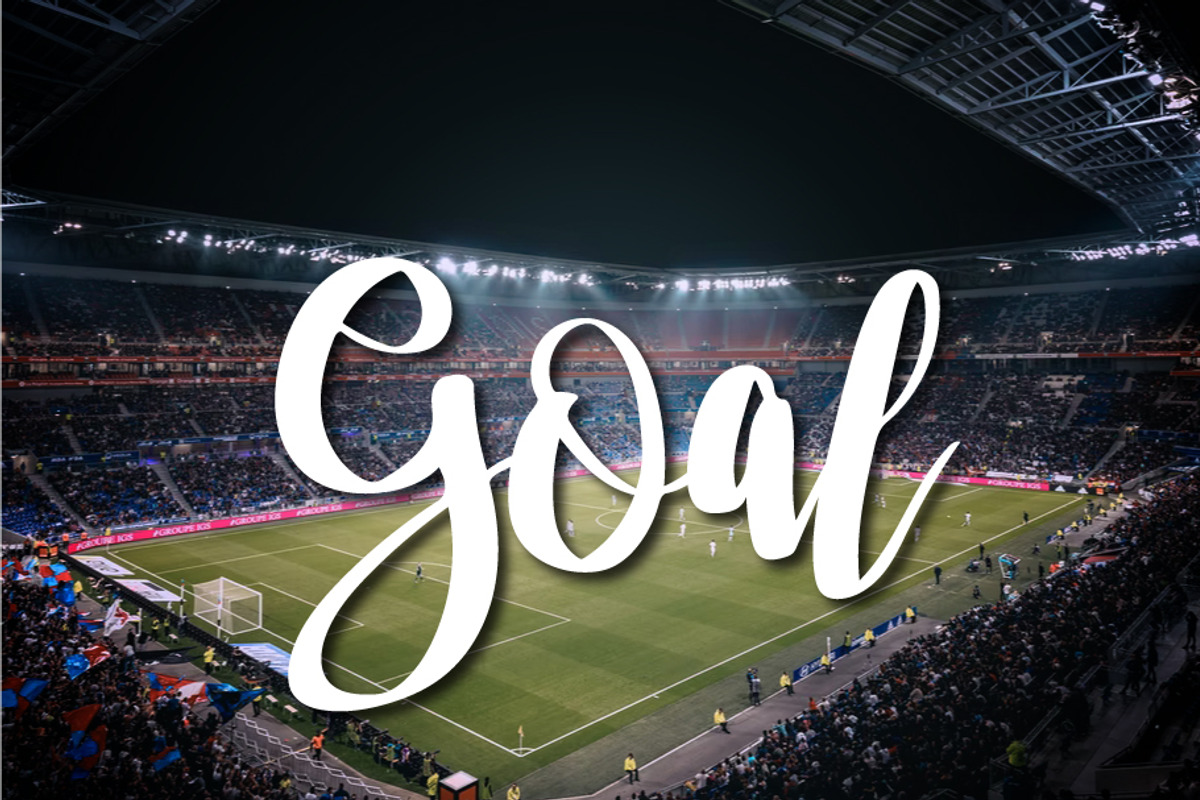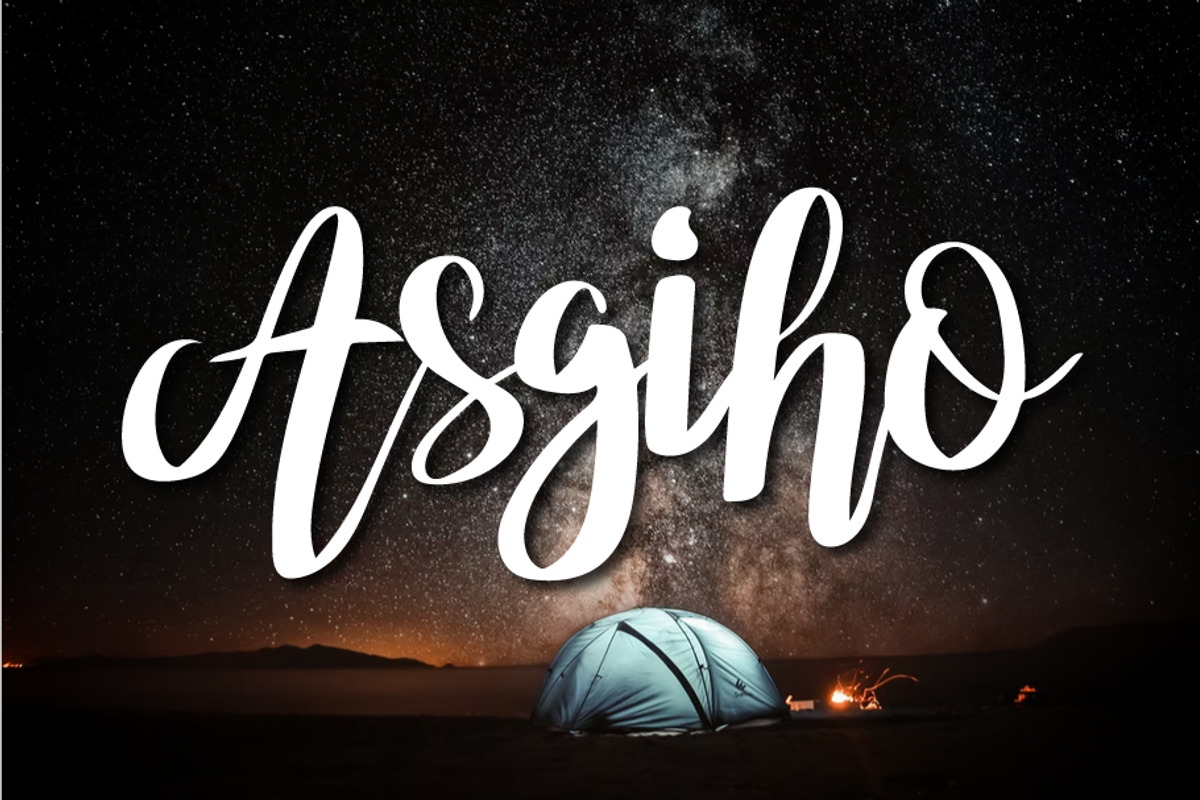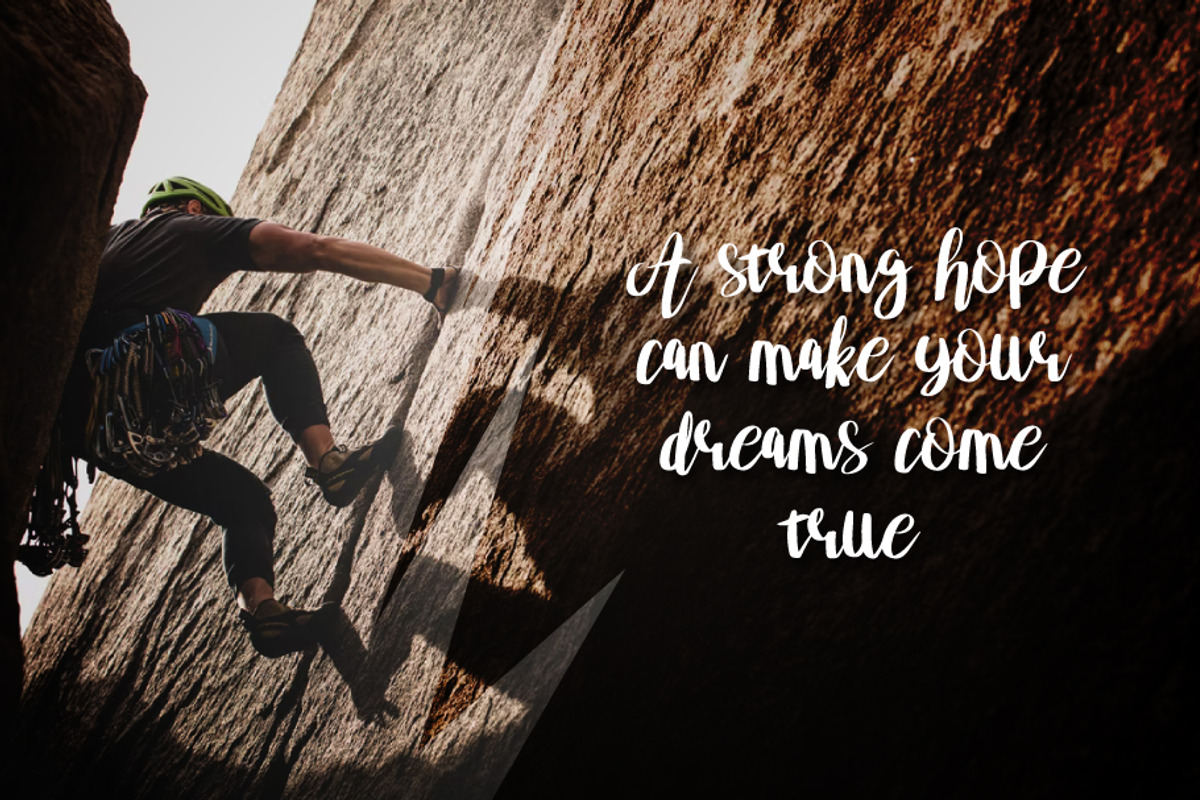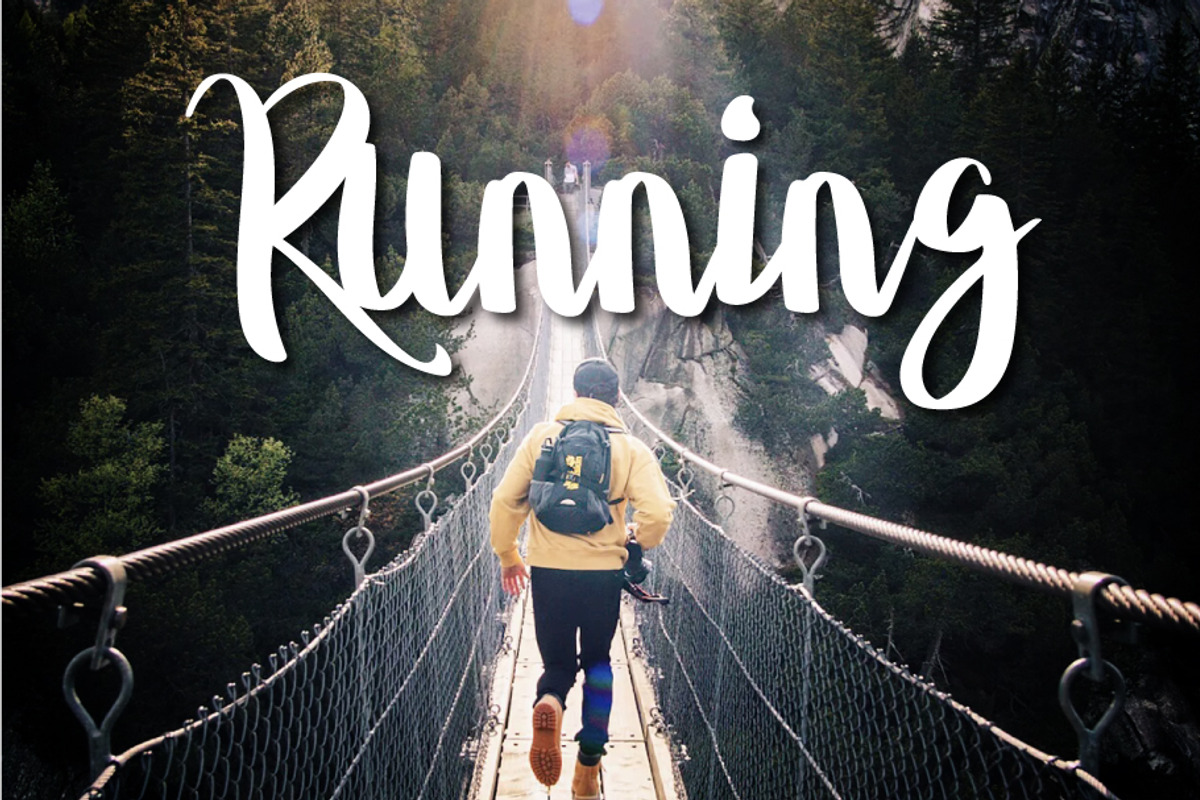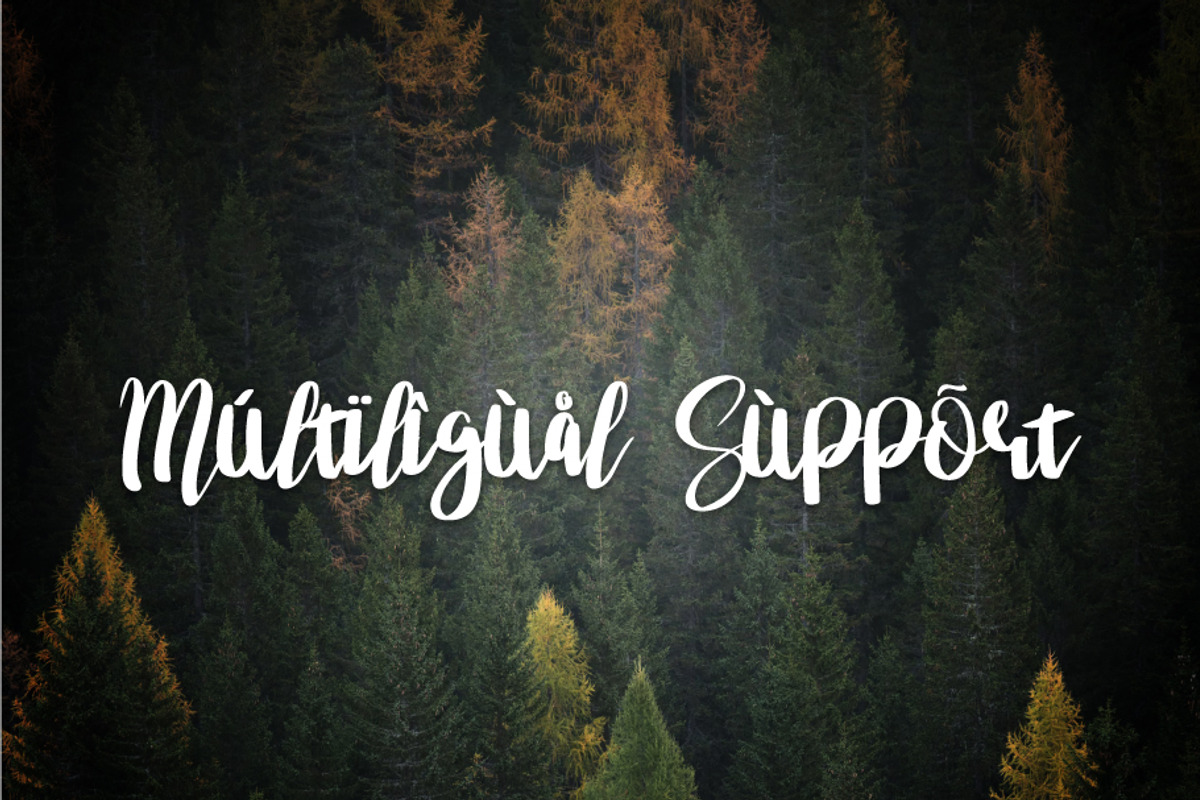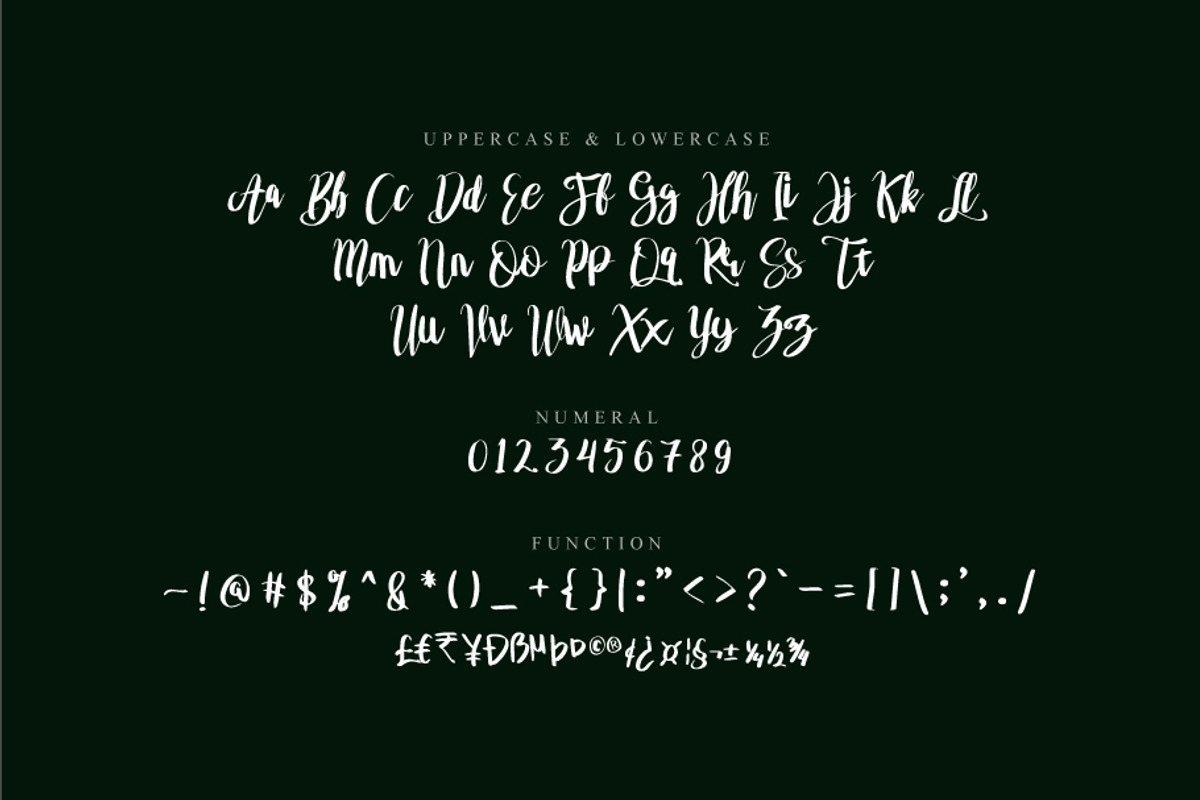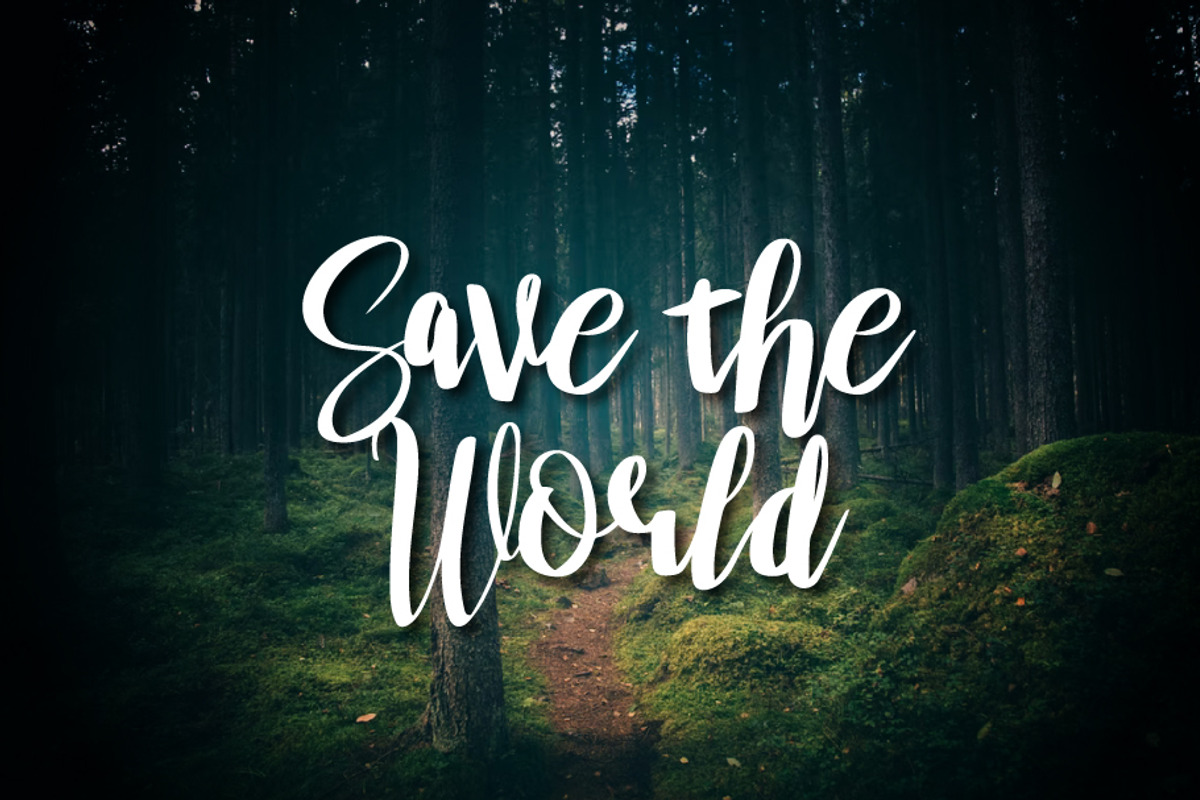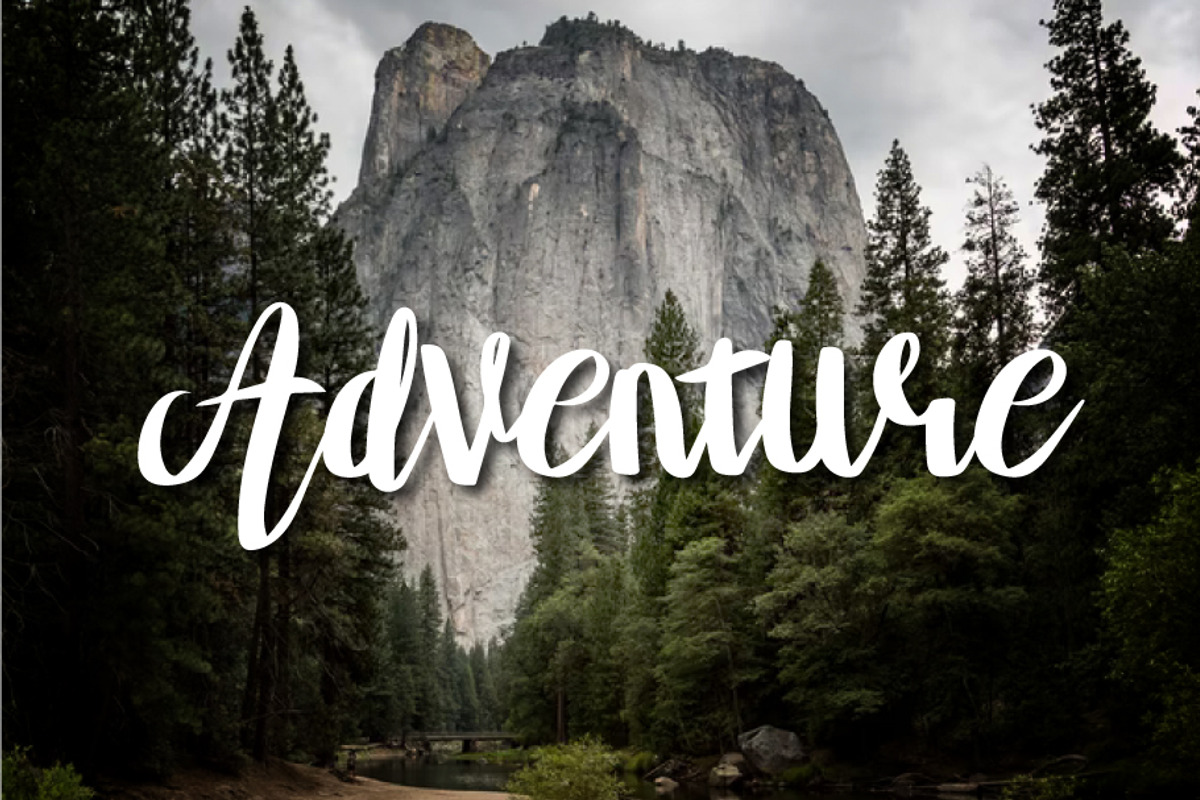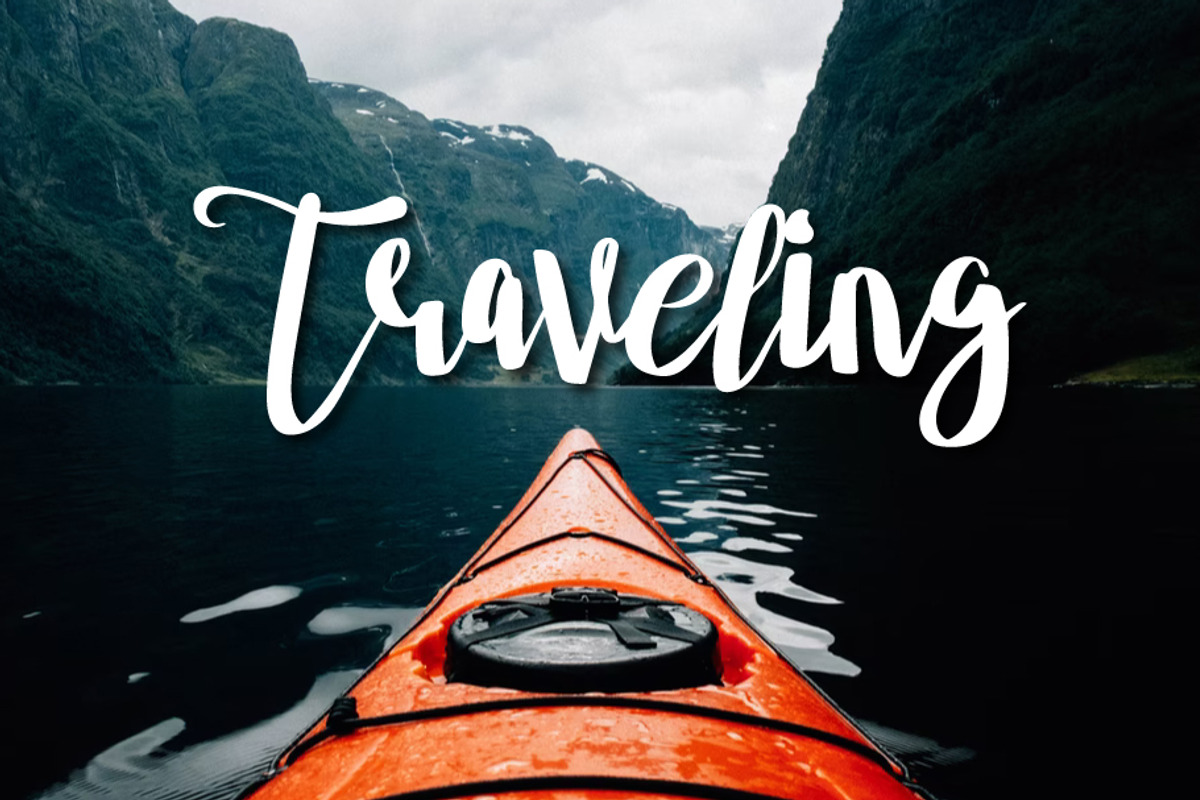
asgiho
Asgiho Script is a lovely and timeless handwritten font. It is the best choice for creating eye catching logos, branding and quotes. Every letter has a unique and beautiful touch, which will make your design come alive! If you are still unsure, feel free to drop me a line, I'll try to get to you as soon as possible :) Now go ahead and Get designing already!